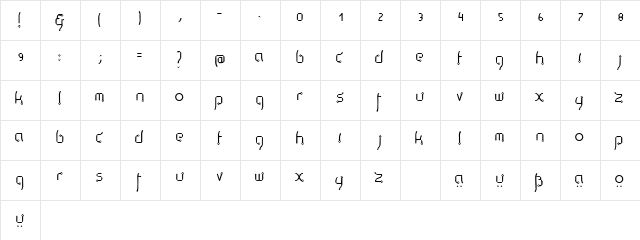
Thaipe Thin
Design Context for Thaipe Typeface
Thaipe offers clean, dependable letterforms without strong stylistic allegiance, making it a practical choice for designers who need flexibility. The delicate stroke weight brings airiness and refinement to layouts.
Pro Tip: Use Thaipe in both headline and body roles to test its range before committing to a single application.